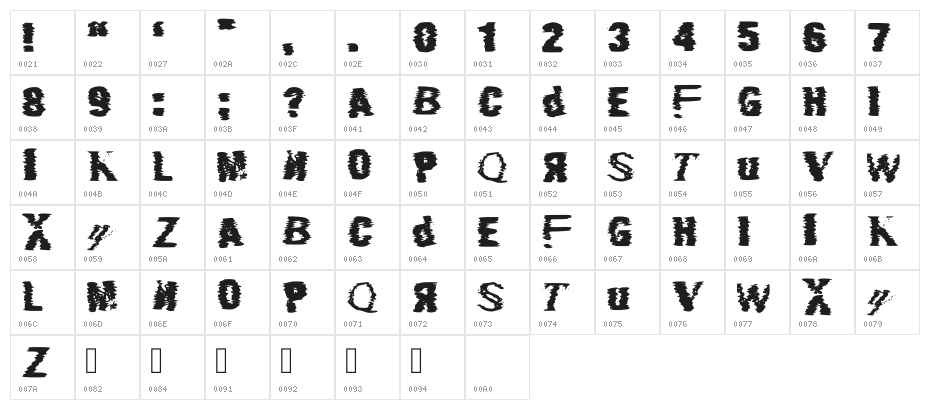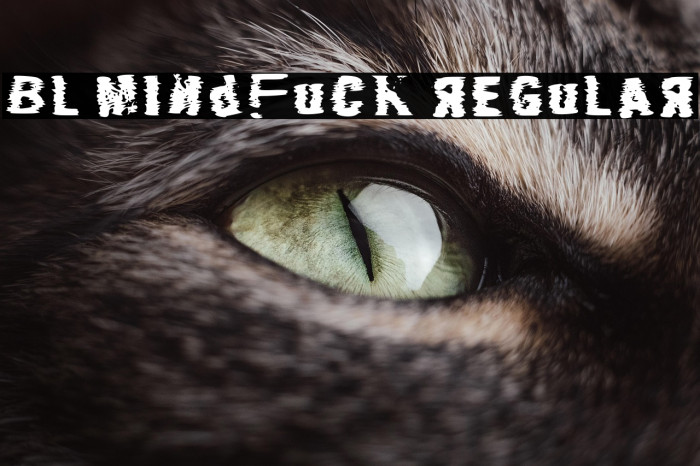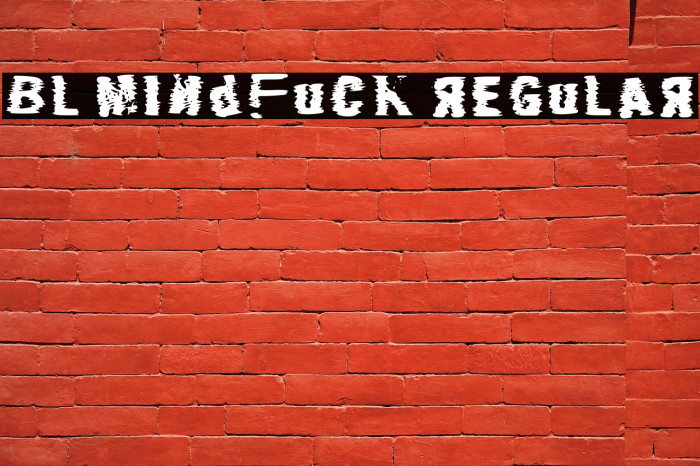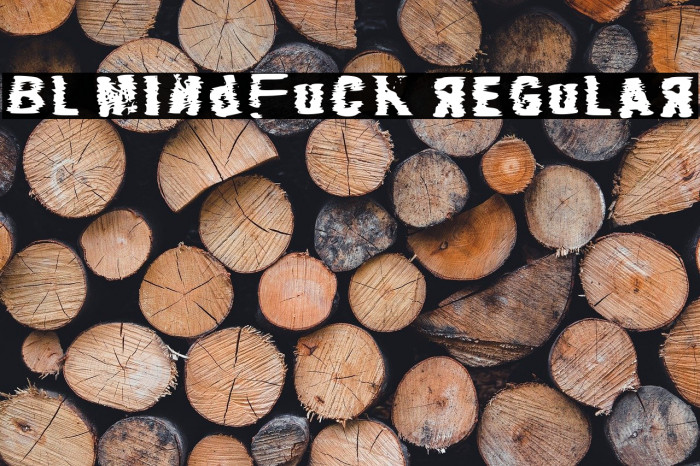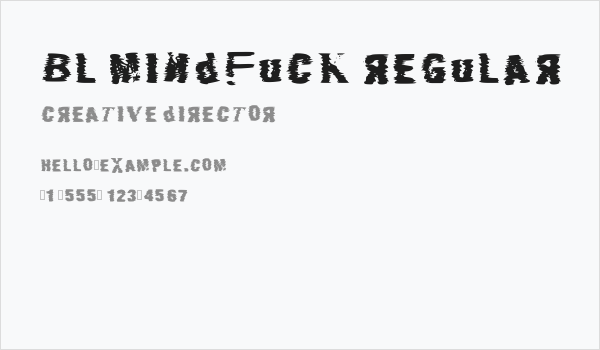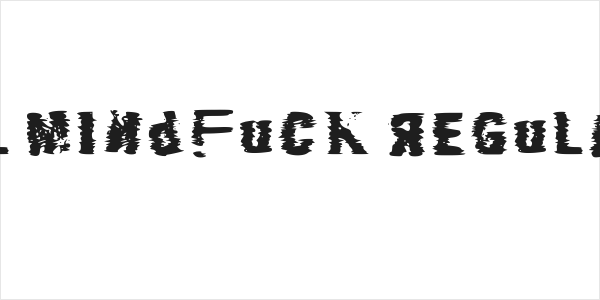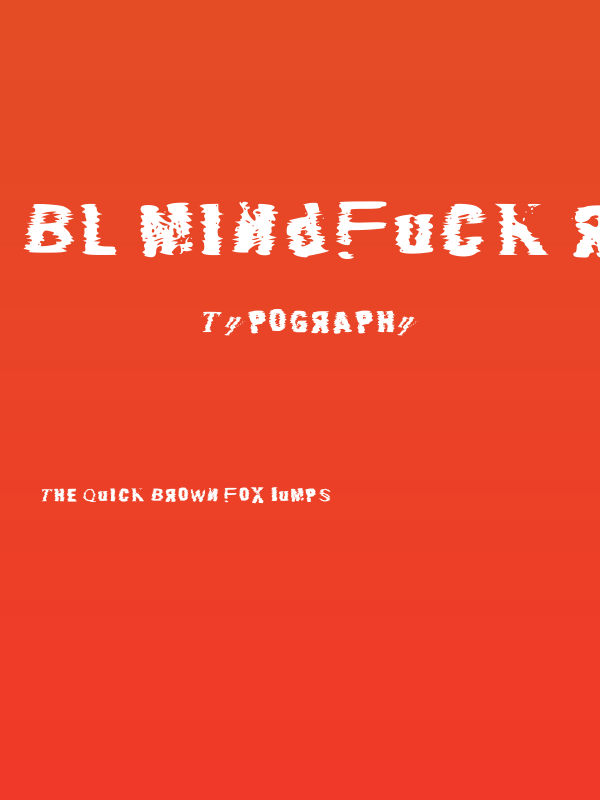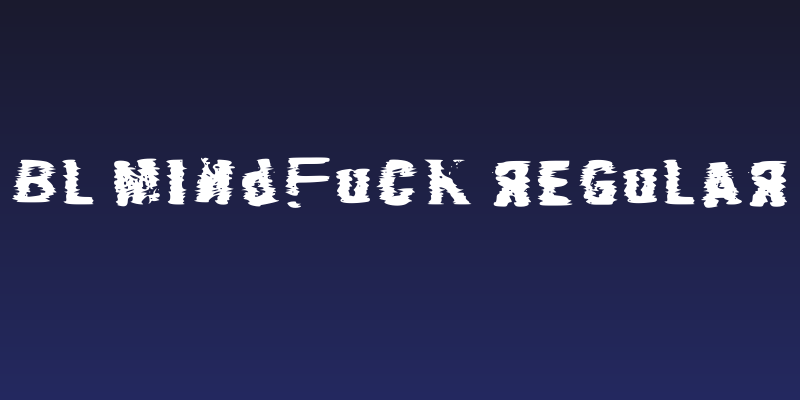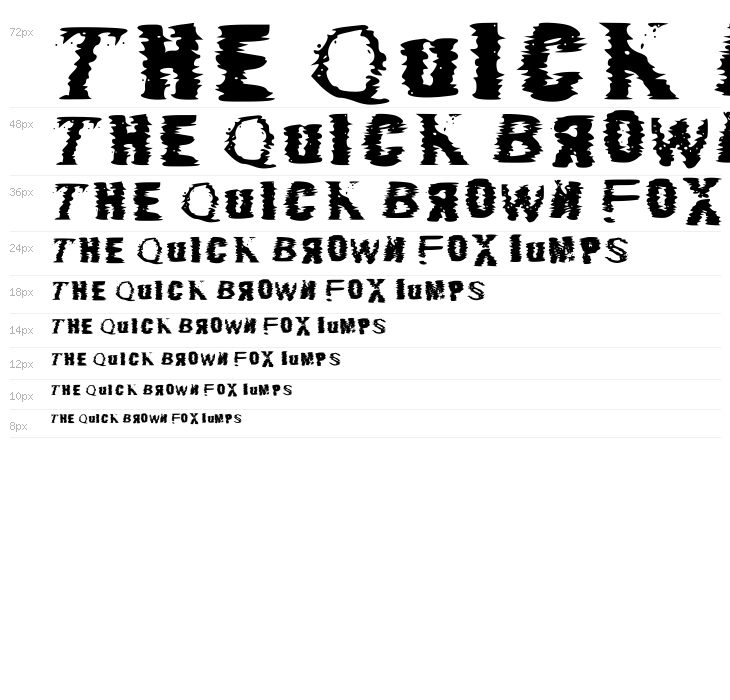
Bl Mindfuck Regular Font
Bl Mindfuck Regular Description
This font exhibits a highly distressed and chaotic appearance, with each character appearing as if it has been distorted or eroded. The irregular edges and varying thicknesses give it a dynamic and energetic feel, reminiscent of grunge or abstract art styles. The uppercase and lowercase letters maintain a consistent level of distortion, creating a cohesive yet unpredictable look. Numbers and special characters follow the same design principles, ensuring uniformity across all glyphs. This font is ideal for projects that require a bold, unconventional aesthetic.
| Overall Style | Grunge, Abstract |
| Use Case | Headlines, Logos, Artistic projects |
| Proposed Projects | Album covers, poster designs, streetwear branding, or any project seeking a bold, edgy look. |